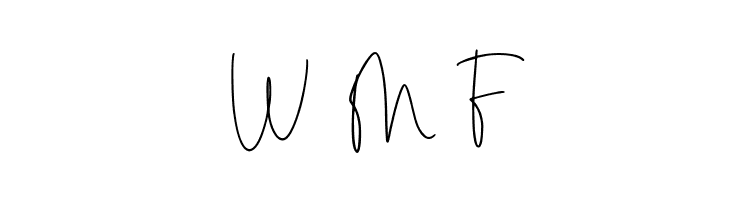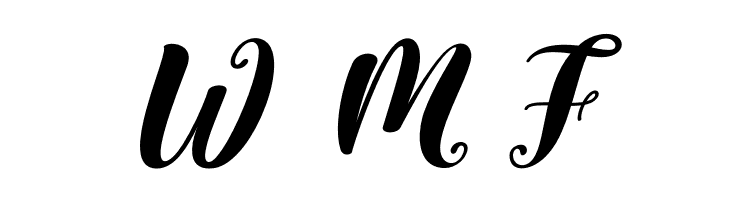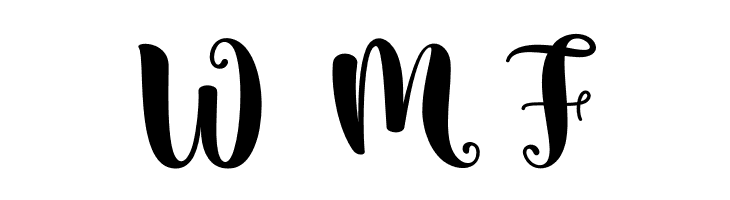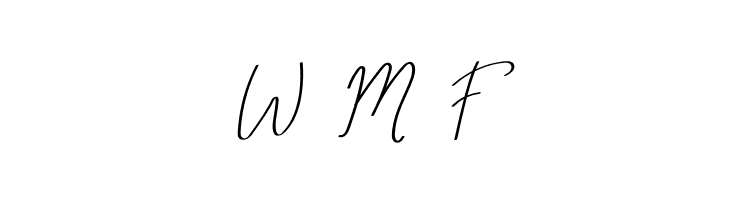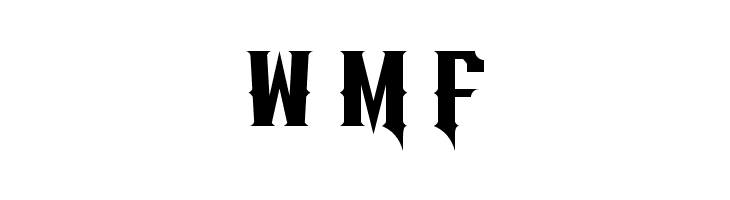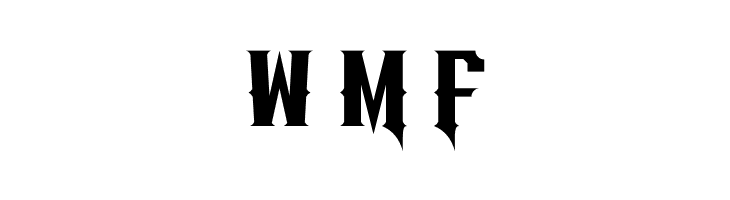
Neospace Circuit Expanded Font
A futuristic, circuit-inspired font with geometric lines and dot accents.
Aesthetic Font
A delicate, flowing script font with an elegant, handwritten style.
Geoplace Regular Font
A modern, geometric font with balanced strokes and clear readability.
Aesthetic Moment Italic Font
Bold italic serif font with high contrast.
AestheticScript-Regular Font
A graceful and flowing script font with elegant curves.
Aesthetic C Demo Font
A playful, handwritten-style font with rounded edges and a casual vibe.
Aesthetic DEMO Font
A bold, Gothic-inspired font with sharp, angular edges.
Odisean One Font
A bold, geometric font with a modern, industrial style and playful special characters.
Geoplace Bold Font
A bold, modern font with geometric structure and clean lines.
Aesthetica Font
A bold, artistic font with layered strokes and a dynamic, textured appearance.
Aesthetic DEMO Font
A bold, Gothic-inspired font with sharp, angular edges and decorative serifs.
Aesthetic Beauty CF Font
Elegant serif font with high contrast.
AestheticScript-Regular Font
A flowing, elegant script font with smooth, connected strokes.
Aesthetic Violet Font
A bold, expressive handwritten script with a brush-like texture.
Aesthetic Midnight Font
A whimsical script font with elegant swashes and decorative loops.
Aesthetic Monoline Font
A handwritten, cursive script font suitable for casual and creative designs.
AestheticNotes-Demo Font
A casual, handwritten font with fluid, connected strokes and dynamic thickness.
Aesthetic Midnight Slant Font
A dynamic, elegant cursive script with a slanted, flowing style.
Aesthetic Rainbow Font
A playful handwritten font with smooth, rounded letterforms and a casual vibe.